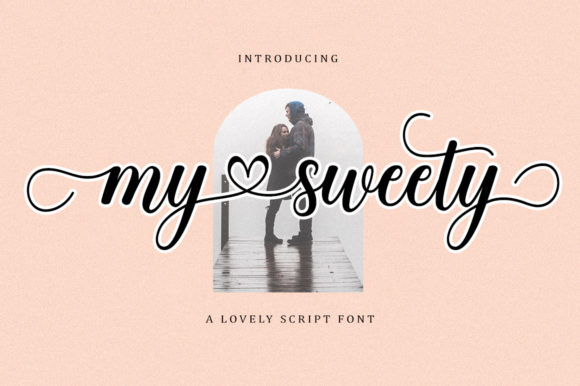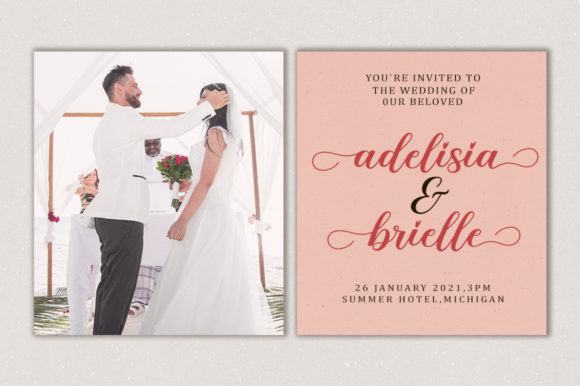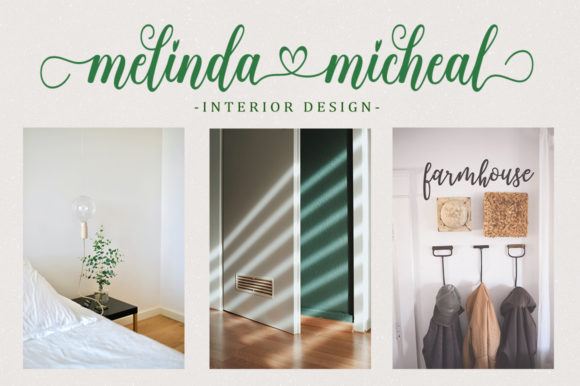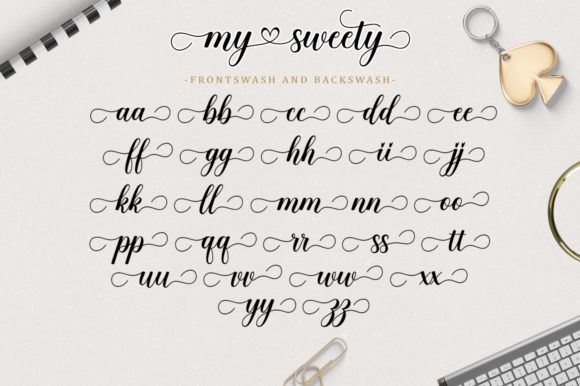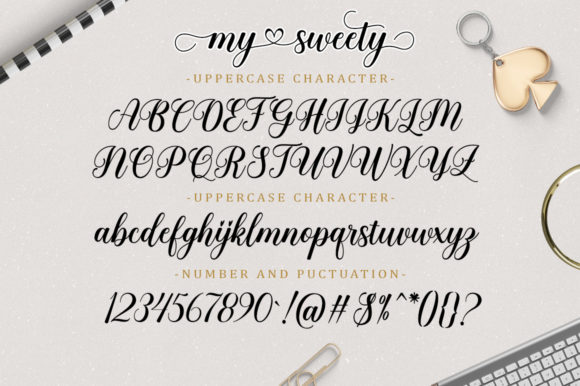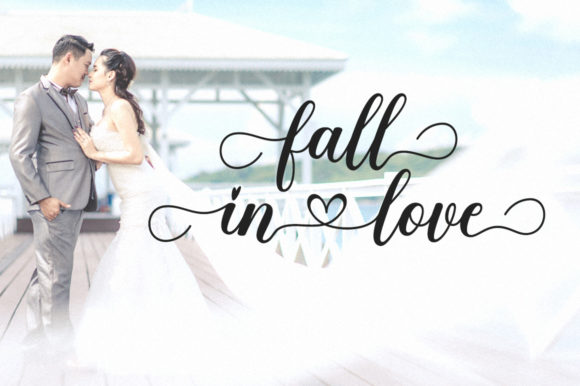
My Sweety Font
About My Sweety Font
My sweety is a delicate and elegant handwritten font. Its distinct and well rounded letters make this font a masterpiece. Fall in love with its incredibly versatile style and use it to create spectacular designs!